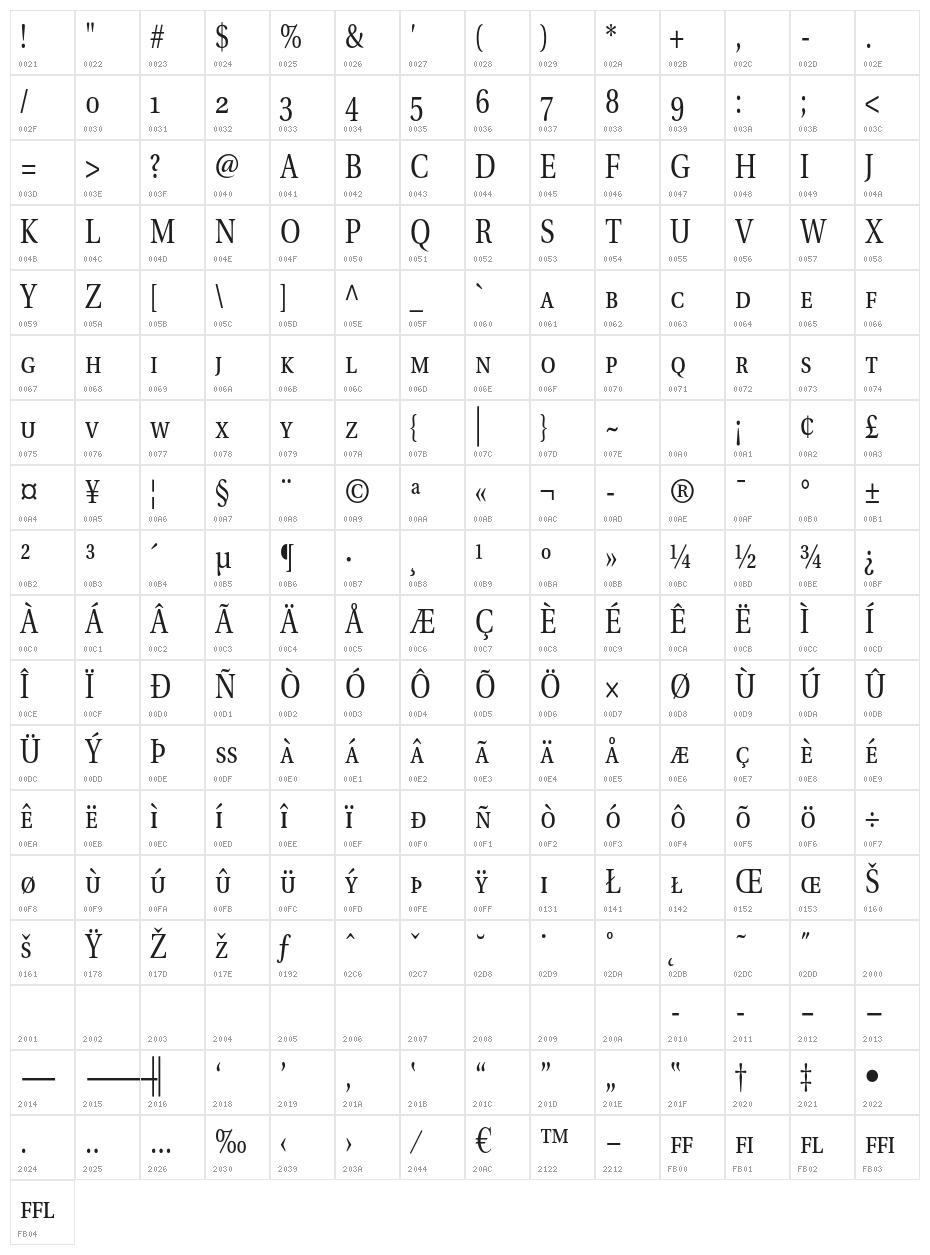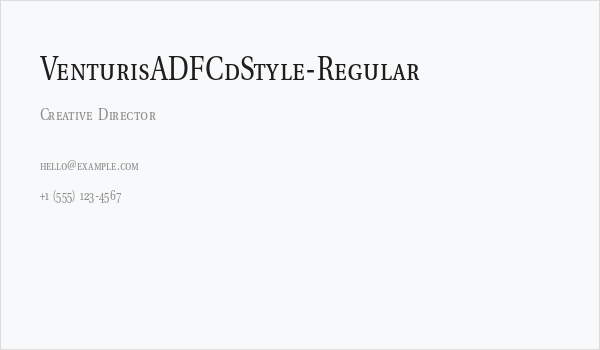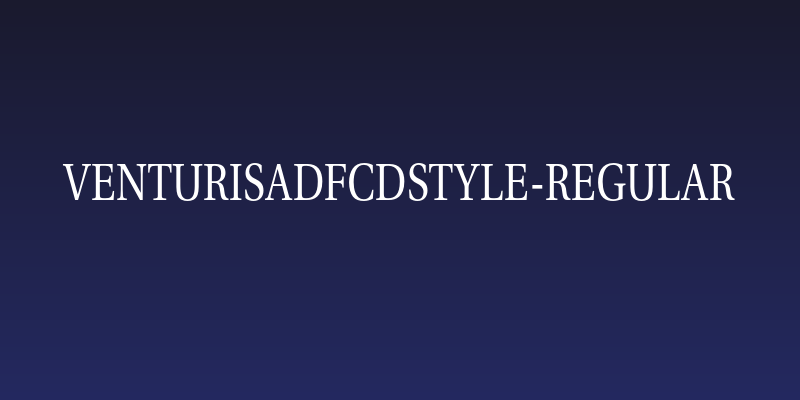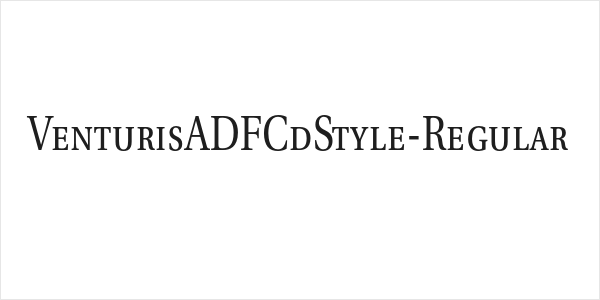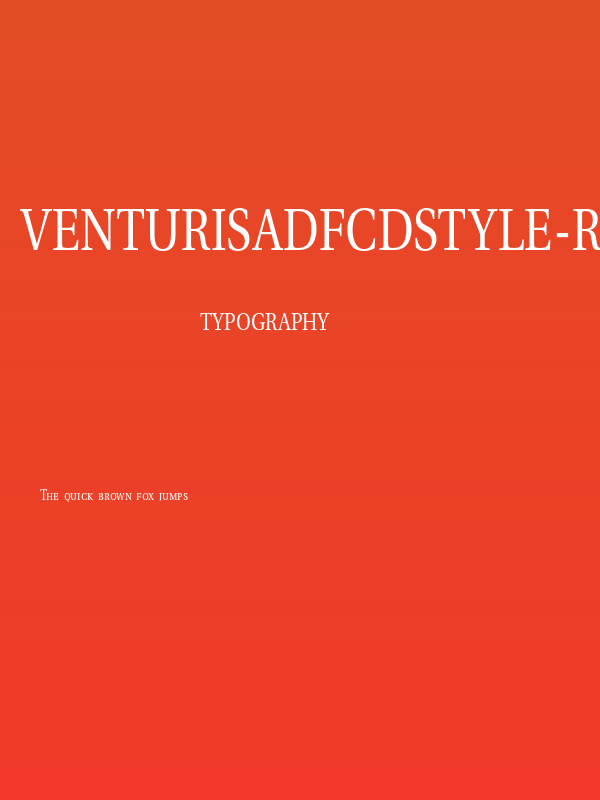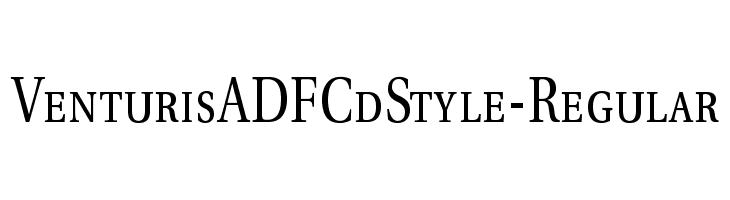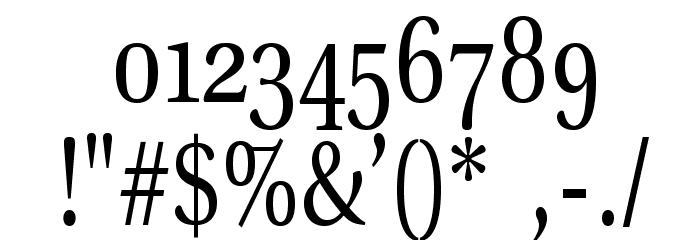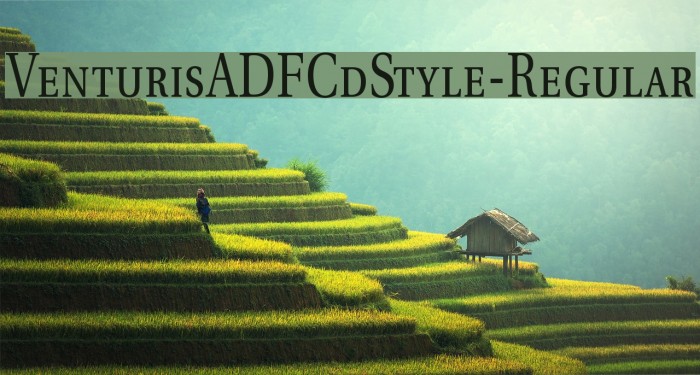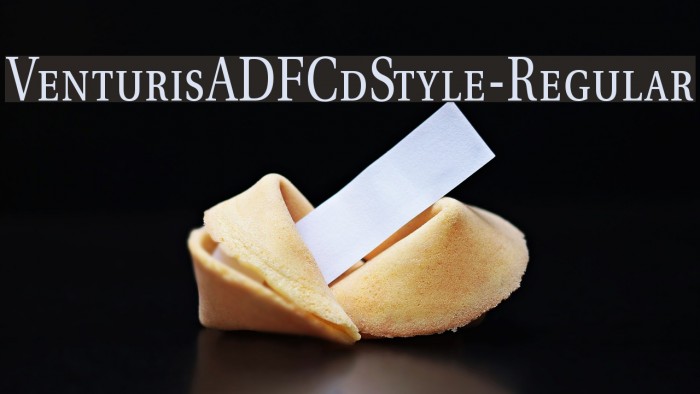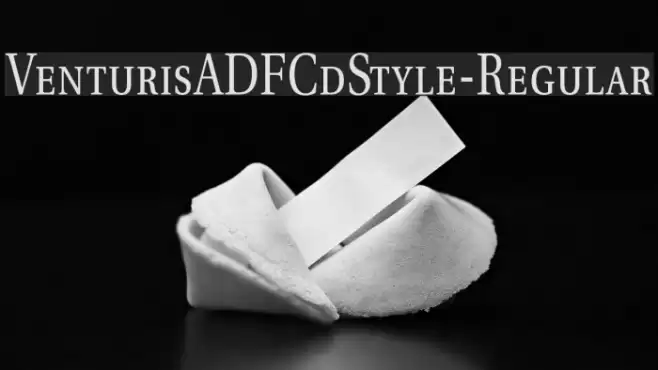
VenturisADFCdStyle-Regular Font
VenturisADFCdStyle-Regular Description
This font exhibits a classic serif style, characterized by its elegant and traditional appearance. The serifs are pronounced, providing a sense of formality and sophistication. The uppercase letters are well-proportioned, with a slight contrast in stroke thickness that adds to the readability. The lowercase letters maintain a consistent style, complementing the uppercase with their smooth curves and balanced structure. The numerals are clear and distinct, making them suitable for both text and display purposes. Special characters are designed to match the overall aesthetic, ensuring a cohesive look across all glyphs.
| Overall Style | Classic |
| Use Case | Headlines, Body text, Logos |
| Proposed Projects | Ideal for editorial design, book covers, formal invitations, and branding projects that require a touch of elegance. |